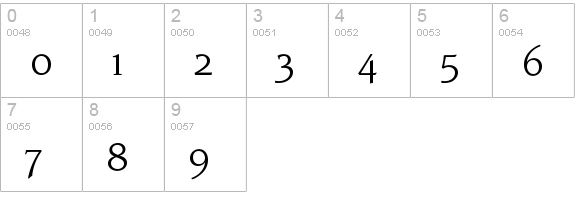
LeawoodSCEF-Book Font Details
LeawoodSCEF-Book is a comfortable, highly readable variant in the LeawoodSCEF typeface family \xE2\x80\x94 well suited to long-form body text, articles, and editorial content.
Introducing LeawoodSCEF-Book, a stunning font that combines elegance and modernity to deliver a truly unique typographic experience. This font is specifically designed to captivate and engage readers, making it ideal for a wide range of projects, including books, magazines, websites, and more. LeawoodSCEF-Book boasts a refined and balanced letterform, with clean lines and a sophisticated appearance that exudes professionalism. Its versatility shines through, as it effortlessly adapts to both digital and print mediums, ensuring your message is communicated flawlessly across all platforms. What sets LeawoodSCEF-Book apart is its incredible attention to detail. Each character is meticulously crafted, resulting in a harmonious and visually pleasing overall design. The smooth curves and graceful strokes lend a sense of elegance and refinement to your text, elevating it to a whole new level. But what makes LeawoodSCEF-Book truly exceptional is that it is free to download at FontsMarket.com. Yes, you read that right - this extraordinary font is available to you without any cost. Now, you can enhance your creative projects with a high-quality typeface that not only stands out but also fits perfectly within your budget. Whether you're a professional designer, a passionate writer, or someone looking to add a touch of sophistication to their personal projects, LeawoodSCEF-Book is the perfect choice. With its seamless legibility and timeless appeal, this font will leave a lasting impression on your audience, ensuring your message is conveyed with utmost clarity and style. Download LeawoodSCEF-Book today from FontsMarket.com and unlock a world of possibilities. Experience the power of this exceptional font and witness how it effortlessly enhances the visual impact of your designs. Don't miss out on this incredible opportunity to access a premium font for free. Take your typography to new heights with LeawoodSCEF-Book and let your creativity soar.